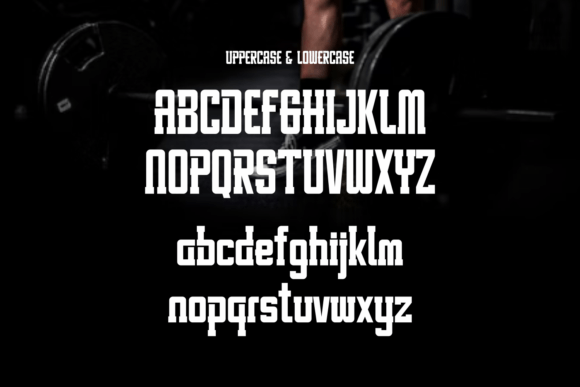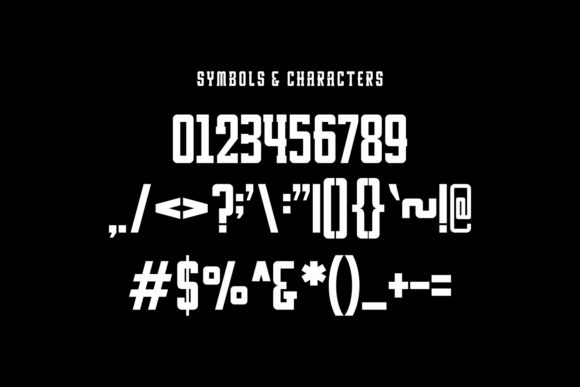
The Birth of a New Design Era: Introducing the Badrung Font
Have you ever been struck by the perfect fusion of style and functionality in a font? It’s that moment when your creative juices start flowing, and you can envision an entire brand identity unfolding before your eyes. That’s exactly what the Badrung Font offers – a seamless blend of aesthetics and versatility that can elevate your designs to new heights.
As a powerful tool for designers, the Badrung Font is designed to thrive on both print and screen. Its perfect balance of style and functionality makes it an ideal choice for branding, name cards, posters, logos, magazines, covers, banners, t-shirts, and even large-scale artwork. Whether you’re a seasoned pro or a budding designer, the Badrung Font is sure to become your go-to companion for creating stunning visuals.
- Unique Characteristics: The Badrung font features a unique blend of traditional and modern elements, making it ideal for projects requiring a distinctive look.
- Font Style: The font is available in regular and bold styles, allowing users to choose the perfect weight for their project.
Badrung Font Review
I recently had the chance to work with the Badrung font, and I must say it’s a unique and intriguing addition to any design project. ✨ One of the things I appreciate about this font is its distinctive style, which sets it apart from more traditional serif or sans-serif fonts. The Badrung font is perfect for projects that need a touch of elegance and sophistication.
Here are some of the things that work well in the Badrung font:
- ✨ Unique style and design that adds a touch of sophistication to any project
- ✨ Highly legible, even at smaller font sizes
However, as with any font, there are some limitations to consider:
- ⚠️ Limited character set, which may not be ideal for projects that require a wide range of languages or special characters
- ⚠️ May not be suitable for projects that require a lot of bold or italic text, as the font can become difficult to read
Overall, I would say that the Badrung font is a solid choice for designers who are looking for something unique and elegant. While it may not be suitable for every project, it’s definitely worth considering for projects that require a touch of sophistication and style.
Tips for Getting the Most Out of Badrung Font
Here are a few tips for getting the most out of Badrung Font:
- Use it in combination with other fonts to create a unique and eye-catching design.
- Use it for headings and titles to add a touch of elegance.
Badrung Font is commonly used for:
- High-end marketing materials.
Alternatives to Badrung Font for Designers
Badrung Font is a popular font, but there are other alternatives that designers can use depending on their project requirements.
Playfair Display is a luxurious, elegant serif font that is perfect for high-end branding, magazines, and fashion designs. It has a similar classic feel to Badrung Font but with a more refined and sophisticated look.
Comparison to Badrung Font: While Badrung Font has a more rustic feel, Playfair Display is more polished and elegant, making it suitable for projects that require a touch of luxury.
Montserrat is a modern sans-serif font that is perfect for digital projects, such as websites and mobile apps. It is highly legible and versatile, making it suitable for a wide range of projects.
Comparison to Badrung Font: Montserrat is a more modern and minimalist font compared to Badrung Font, which has a more traditional feel. Montserrat is ideal for projects that require a clean and modern look.
Lato is a modern sans-serif font that is highly legible and versatile. It is perfect for digital projects, such as websites, mobile apps, and corporate branding.